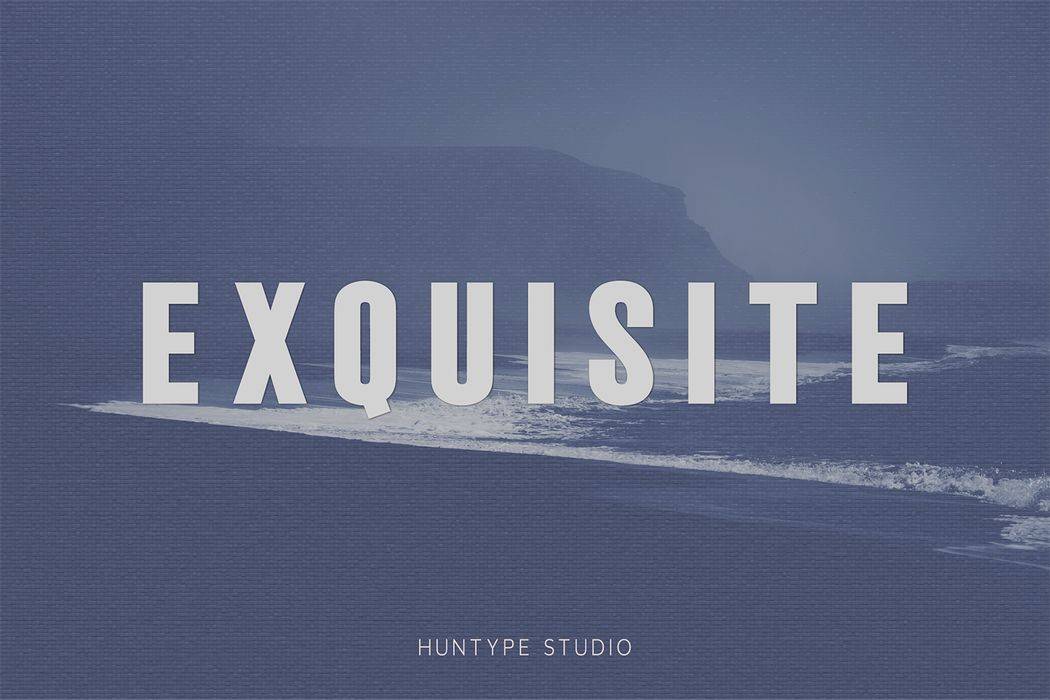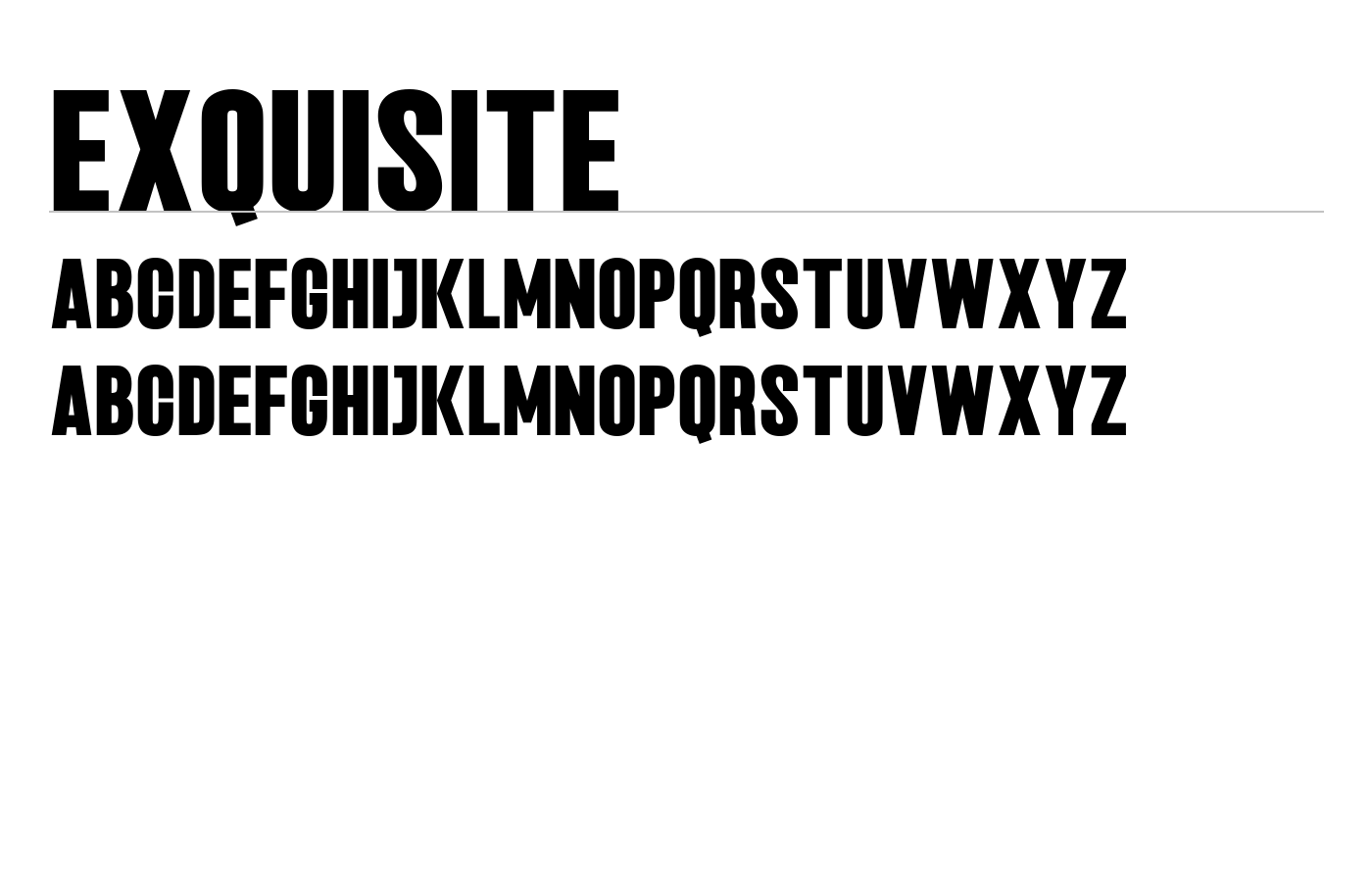
Exquisite Font is a bold, condensed sans serif typeface with a strong, modern presence and high impact. Its tall, blocky letterforms and tight spacing make it ideal for headlines and branding that demand attention and convey confidence. Perfect for logos, posters, and editorial designs, it works well in contexts where boldness and clarity are key.
Exquisite Font
About Exquisite Font